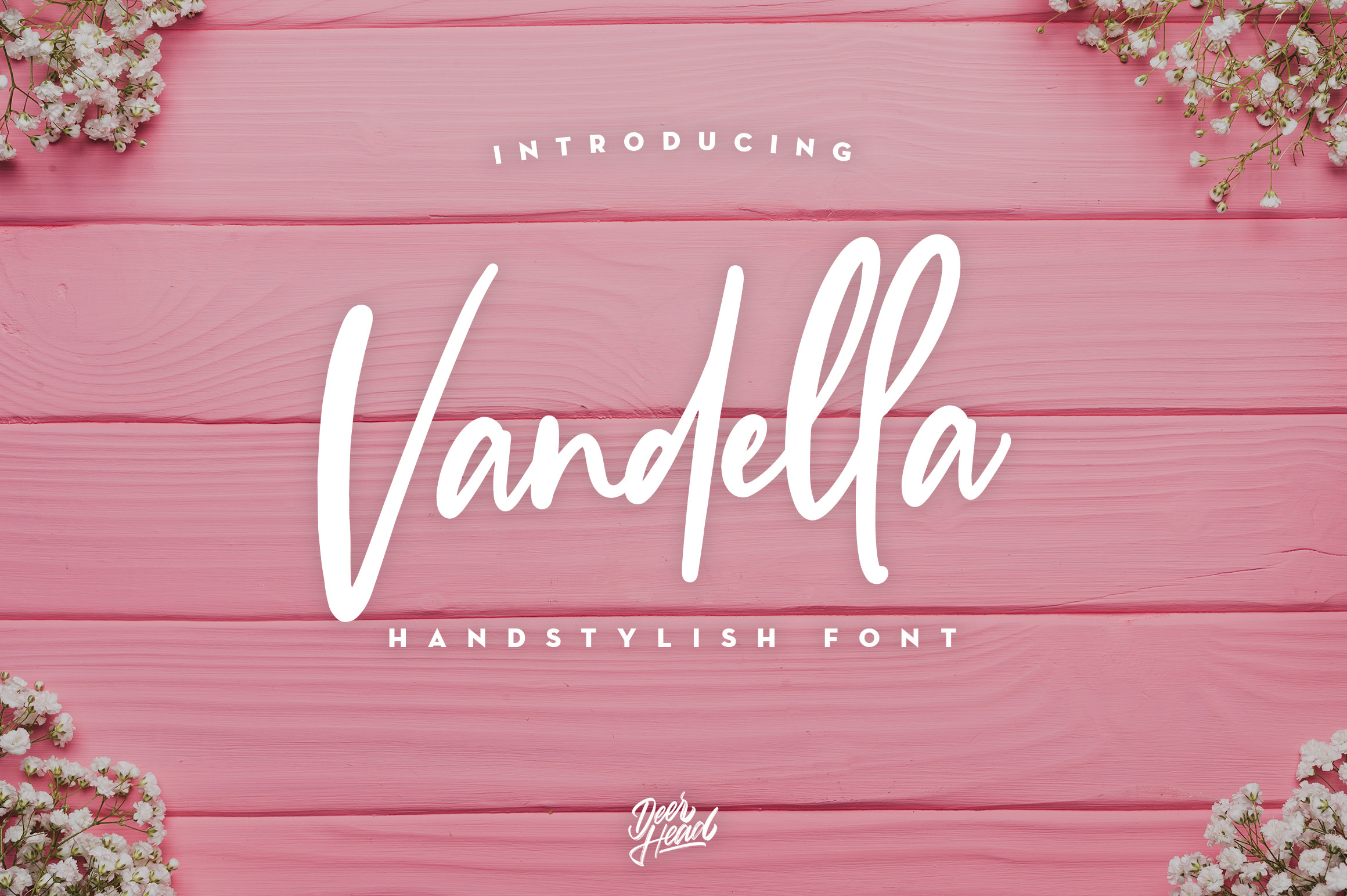
Vandella Handstylish Font
Say hello for Vandella Handstylish Font! Perfect for logos, headers, quotes, product packaging, greeting card, wedding invitation and other creative process possibilities. I hope you have a blast using Vandella Handstylish Font!